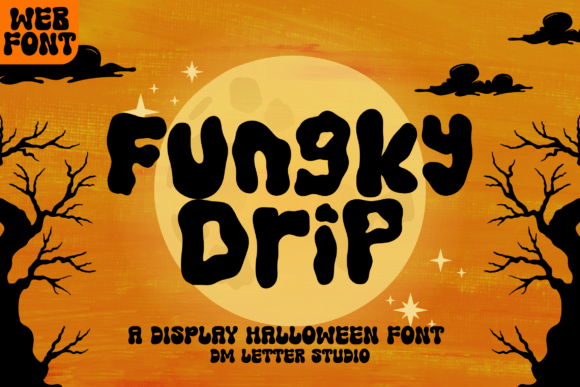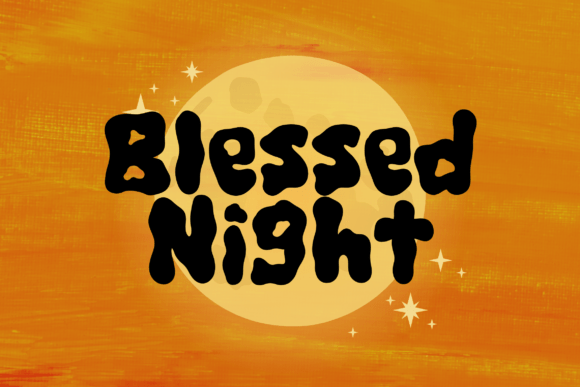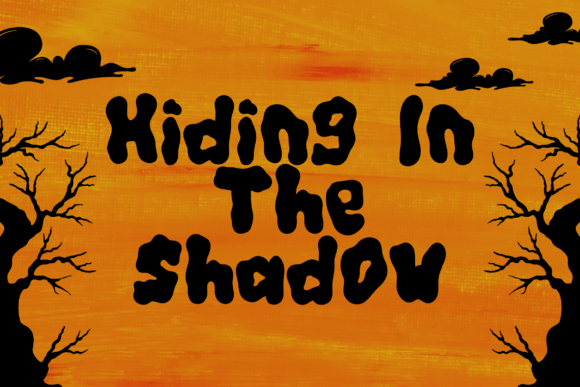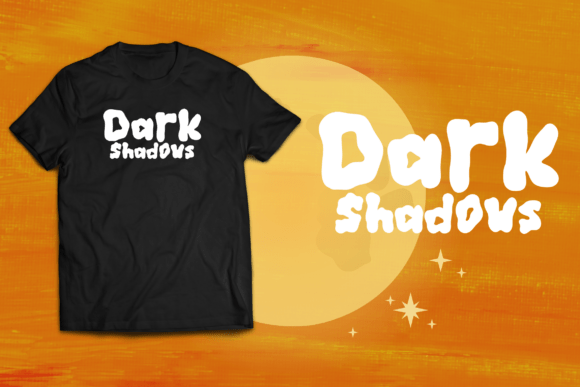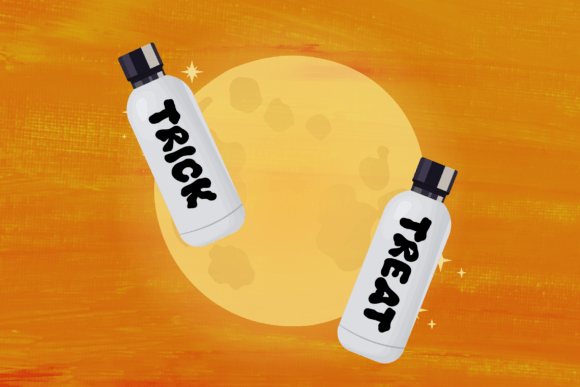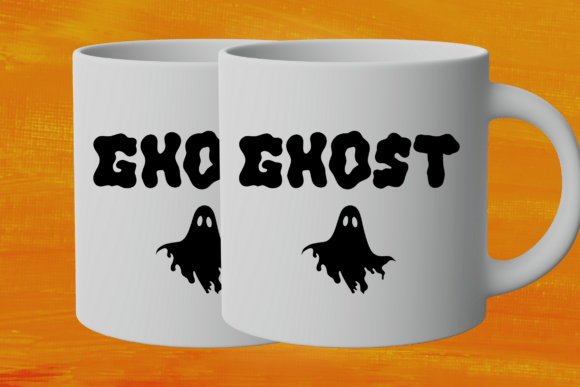
Introduction to Fungky Drip Font Font
Fungky Drip – A Display Halloween Font Fungky Drip is a bold and playful display font with a spooky twist, perfect for Halloween designs and seasonal projects.
Its dripping letterforms give your text a creepy yet fun vibe, making it great for posters, invitations, party decor, and themed merchandise Fungky Drip is Perfect For: Halloween party invitations and flyers Spooky-themed social media posts Seasonal product packaging and labels Posters, signs, and event banners DIY crafts and custom merchandise.